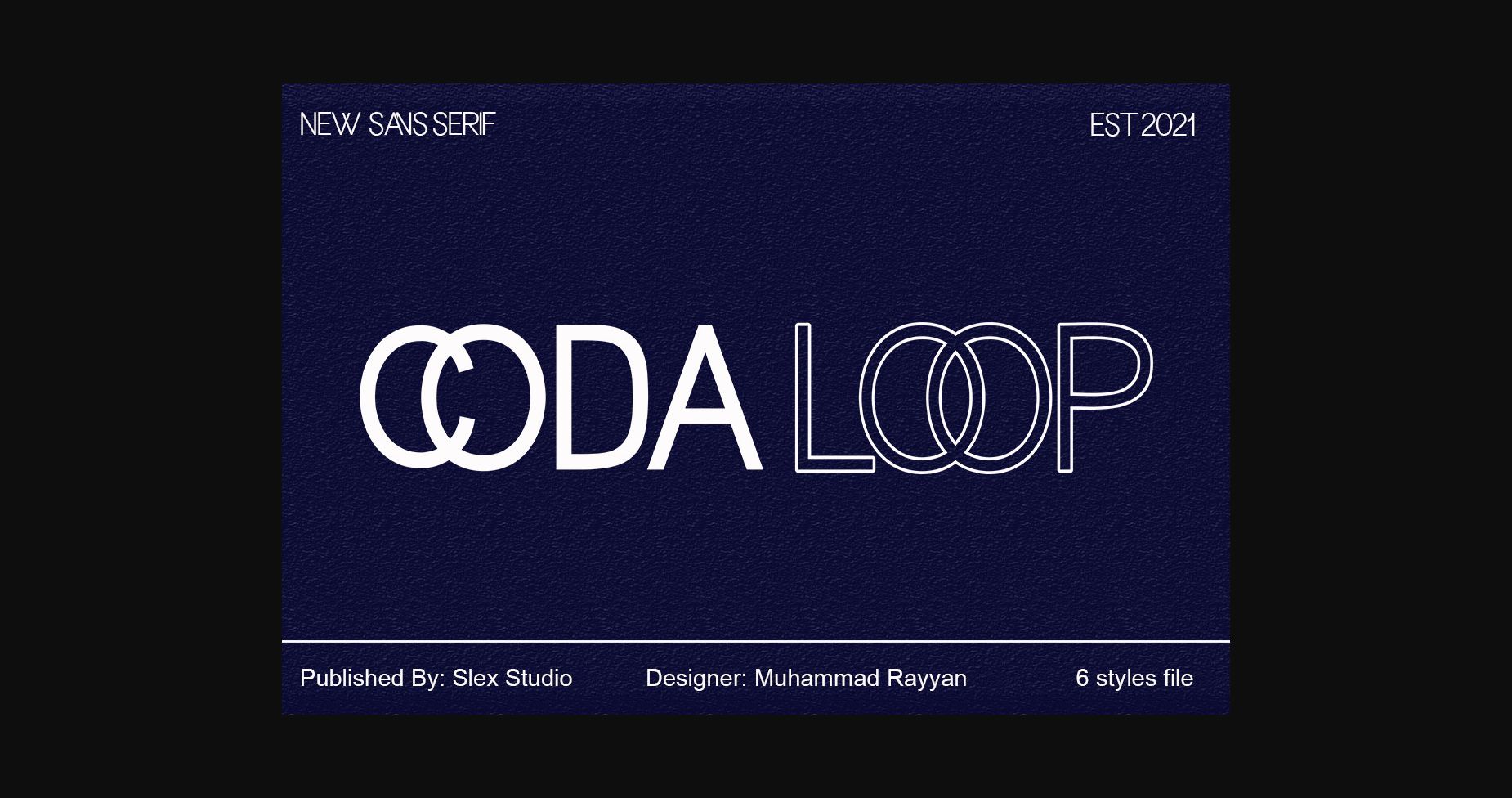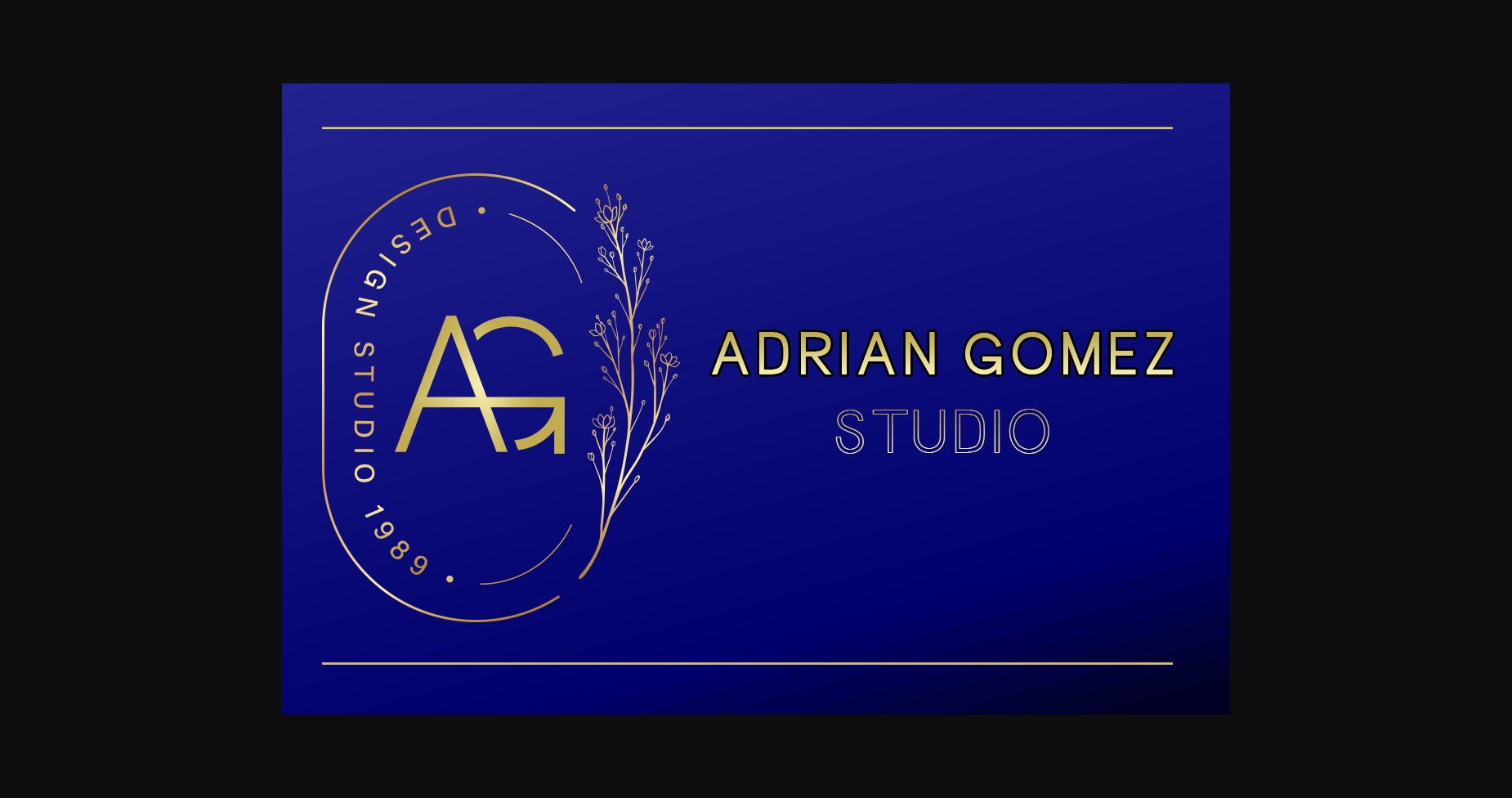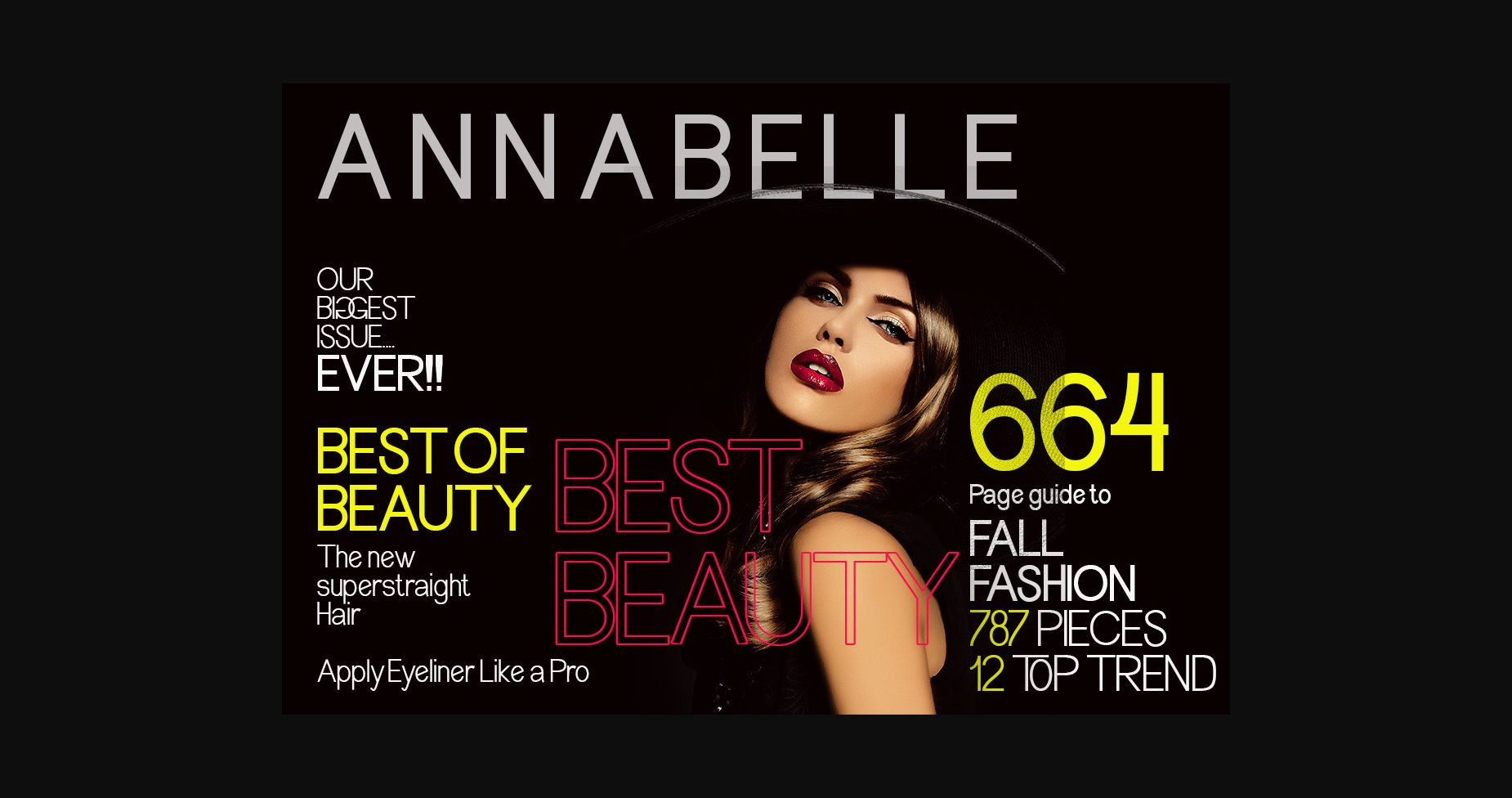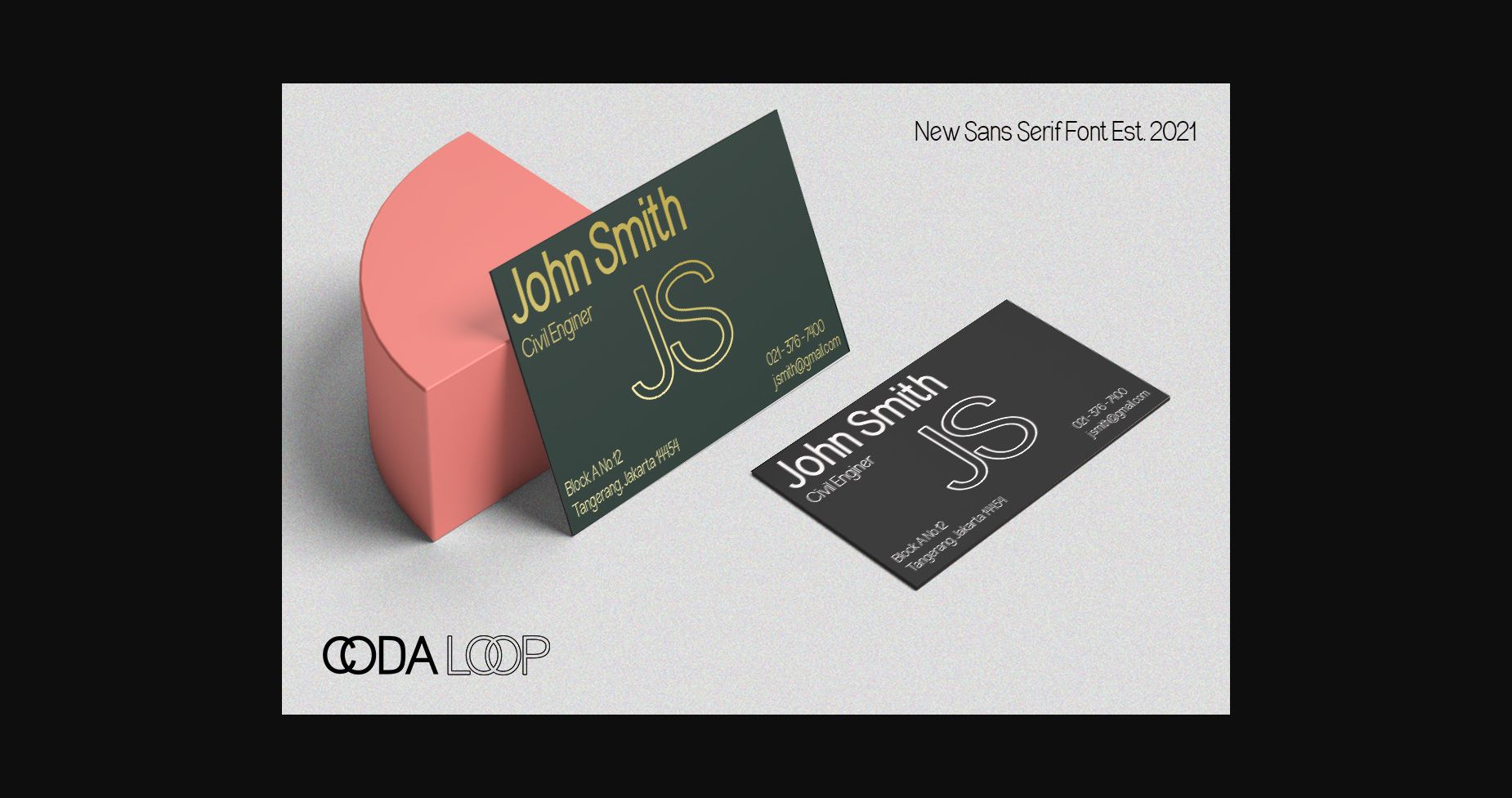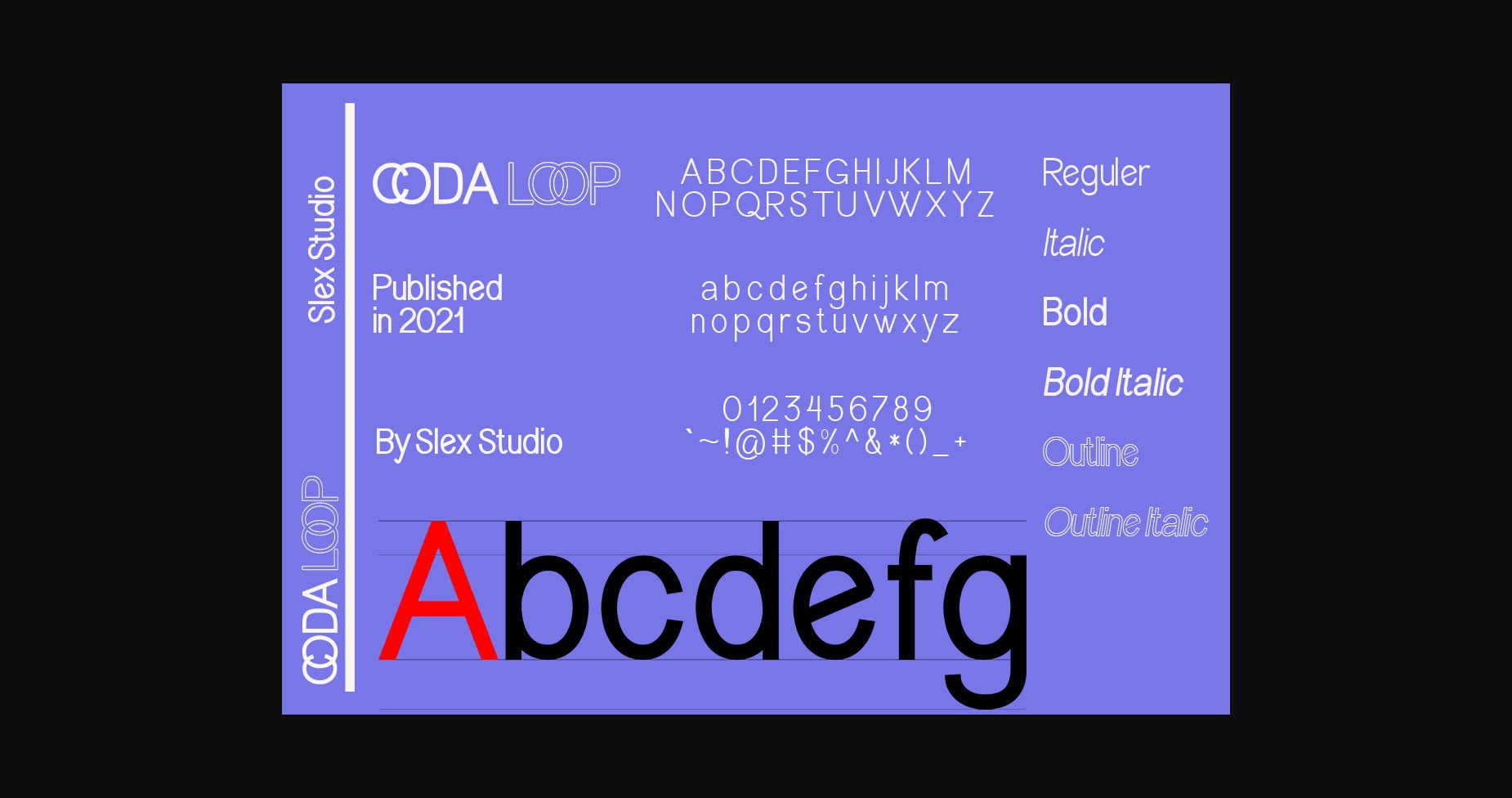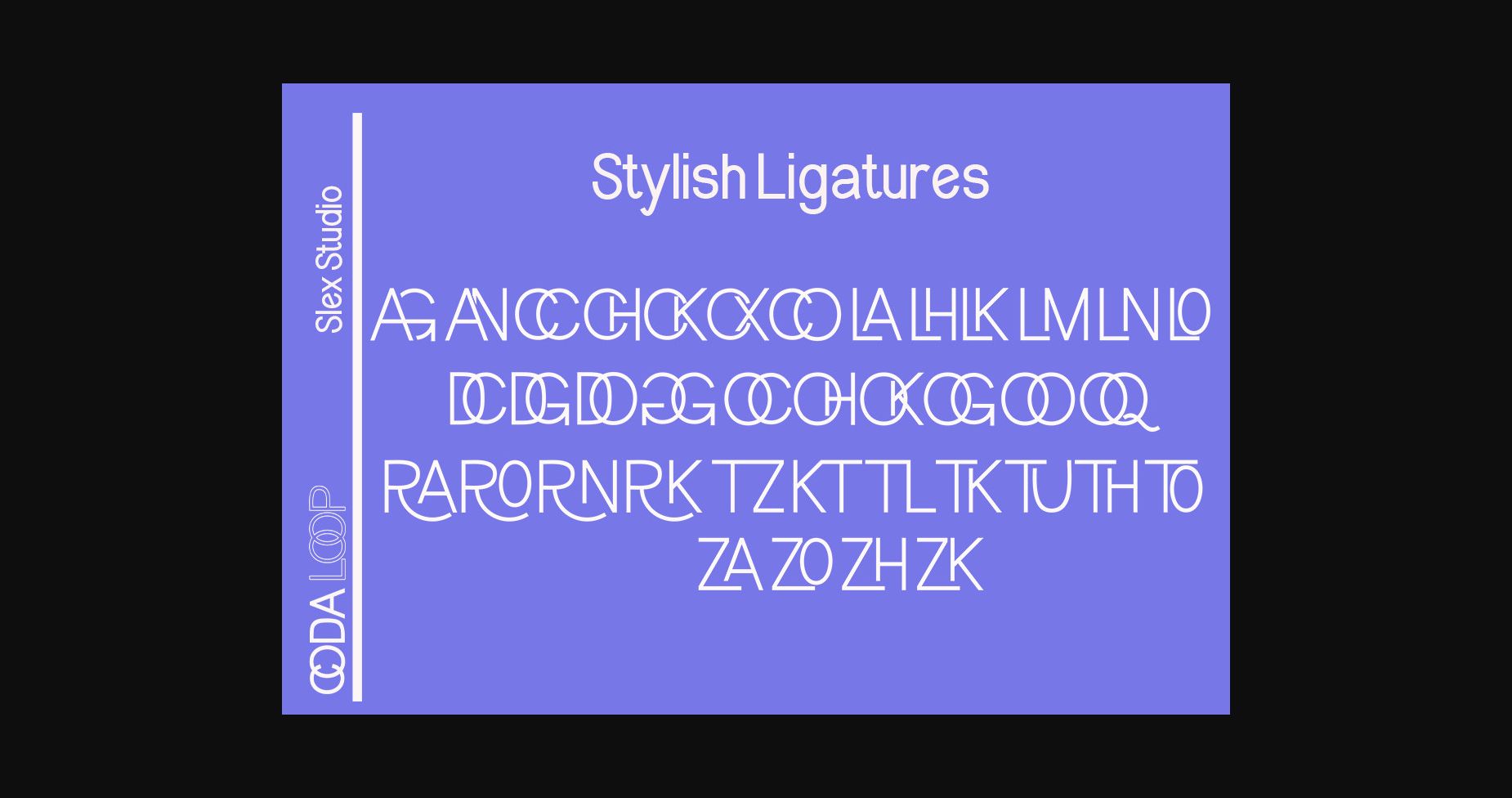
About Coda Loop Font
Coda Loop is a clean, neat and modern sans serif font. This font is PUA encoded which means you can access all of the glyphs and swashes with ease!